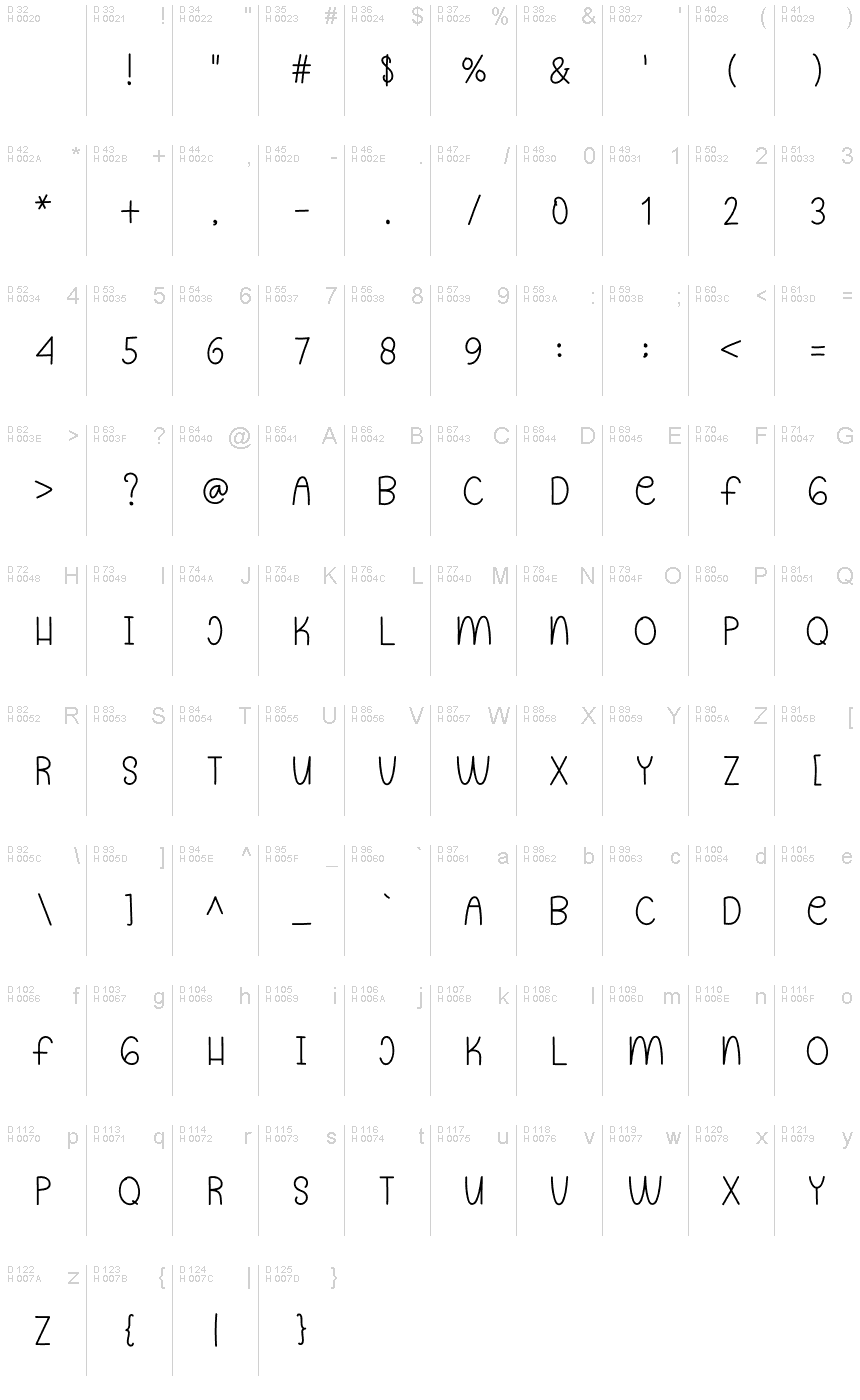
Orange
Orange is a beautifully crafted handwritten font designed by Belina Studio. Its light weight adds an airy and delicate feel to any project, perfect for invitations, greeting cards, or logos. With its playful and whimsical style, Orange brings an element of fun to any design. This versatile typeface can also be used for website headers or social media graphics to add a touch of personality. Whether you're creating a brand identity or designing a unique project, Orange is sure to make your work stand out with its charming and creative flair.
the latest style letters are perfect for wall displays, wedding invitations, social media post logos, advertisements, product packaging, product designs, labels, photography, watermarks, invitations, stationery, and any project that requires taste handwriting.